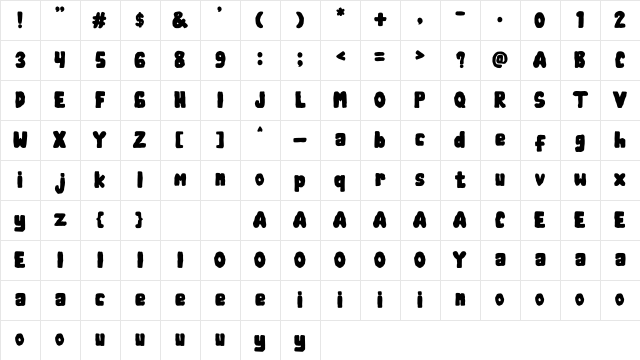
Wahana Awan Regular
Design Context for Wahana Awan
Wahana Awan is a composed and adaptable typeface that performs quietly and consistently across a wide range of design contexts.